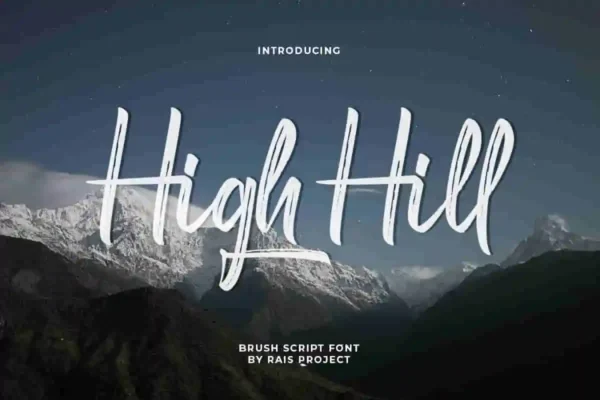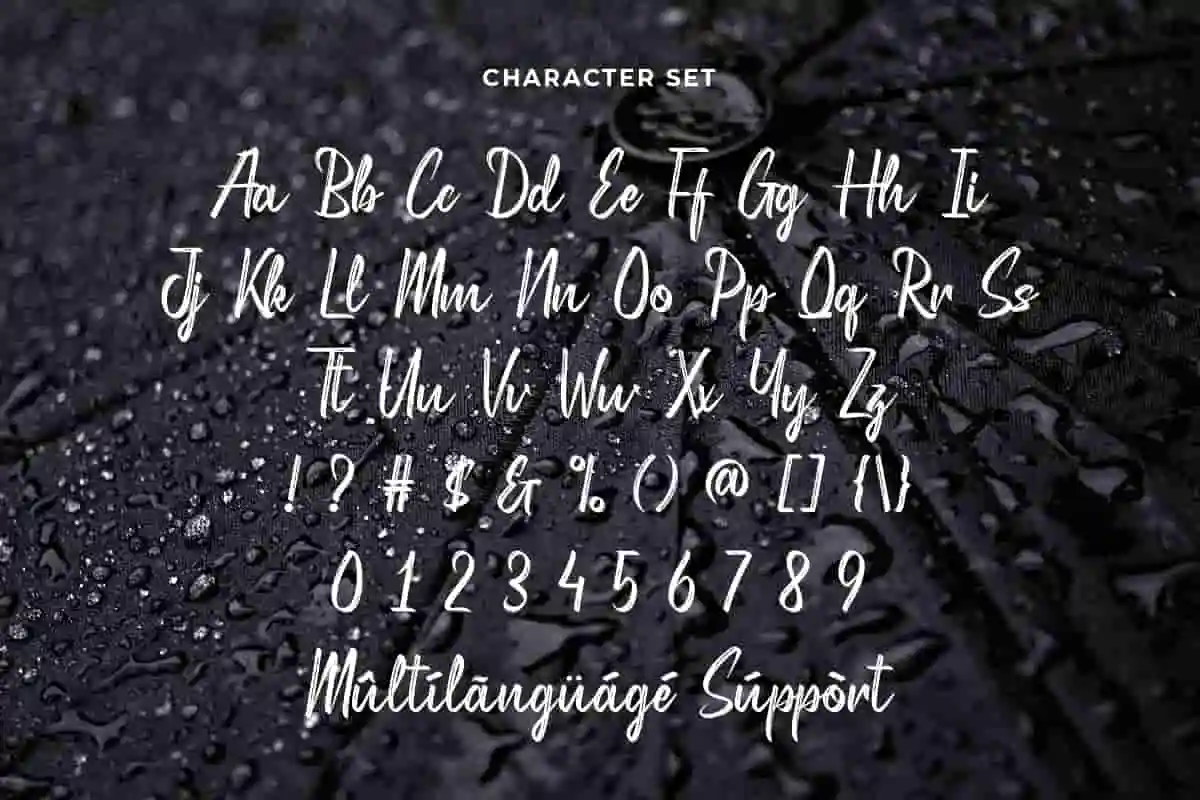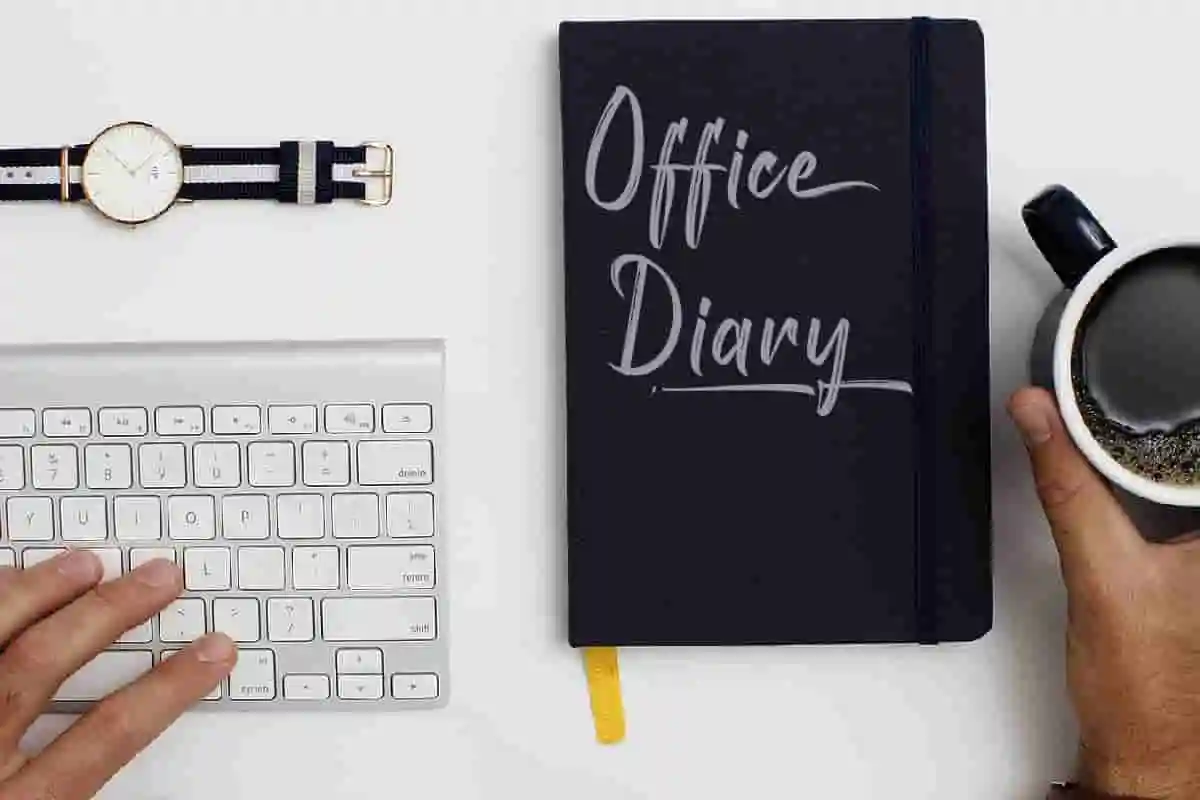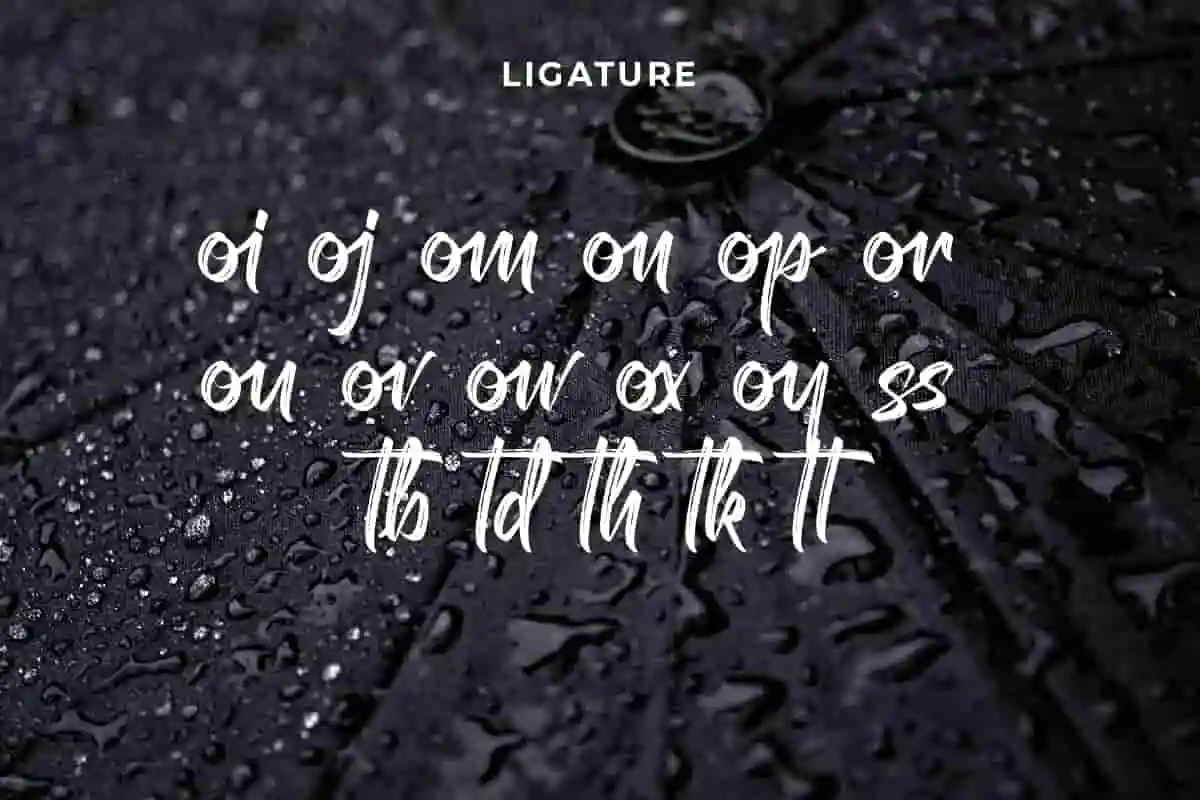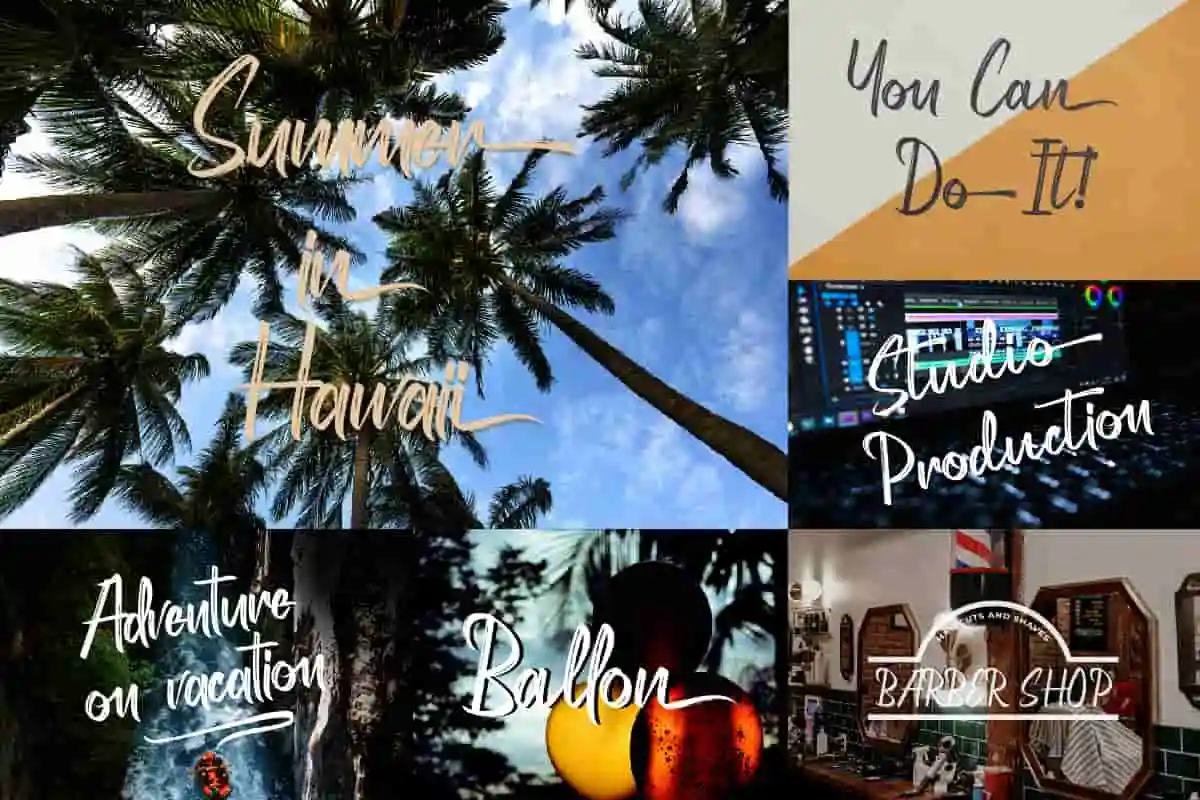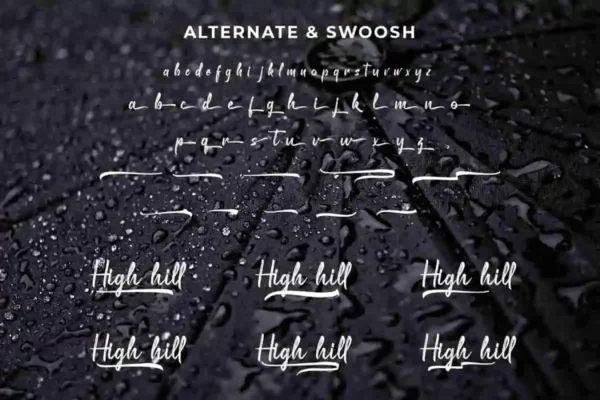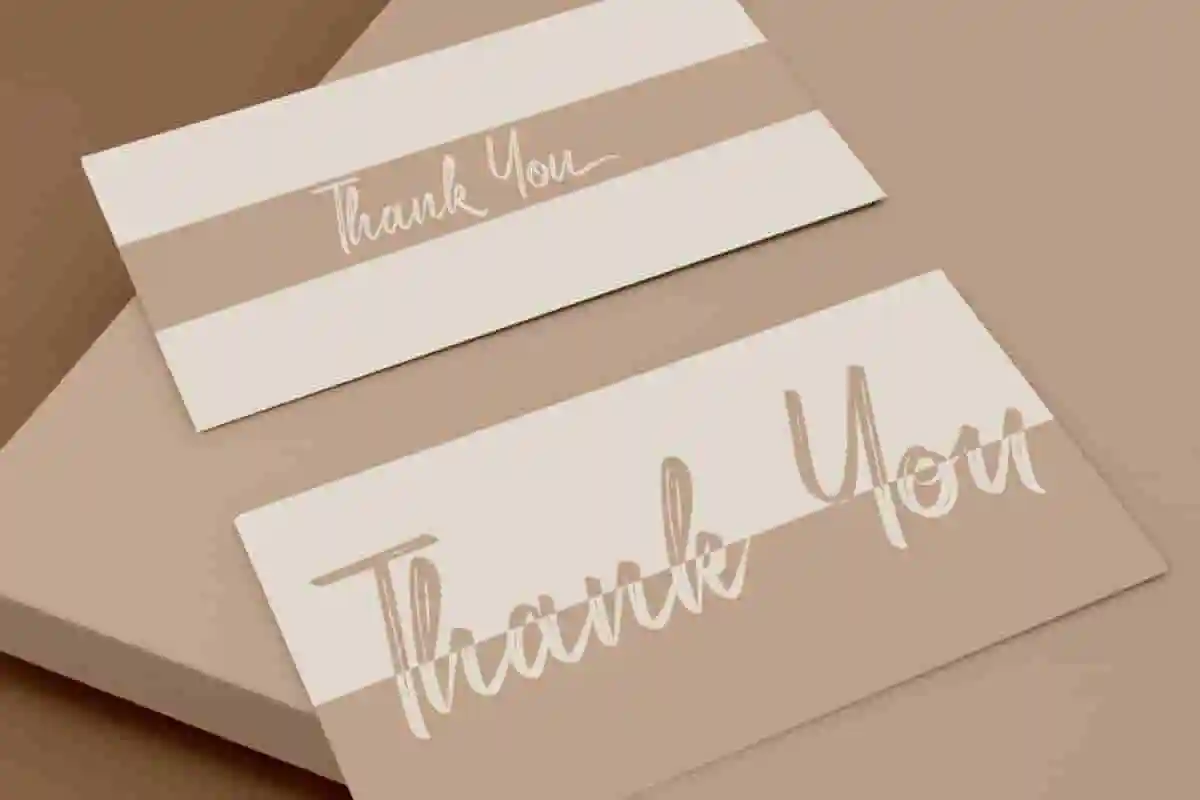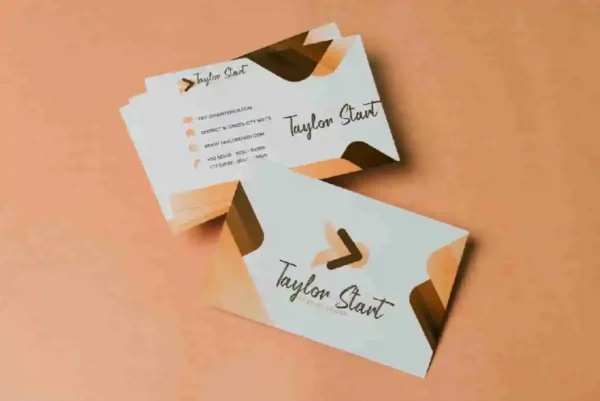
High Hill Font
High Hill Font is a textured brush font, designed by Rais Project. It is an extreme strong brush font with awesome texture that is great for sport, vintage, old style, wedding, Movie, Game, Magazine, Music, Video, outdoor, Racing etc
High Hill Font is a textured brush font with strong extreme style, suitable for sport, games, horror, movie etc. You can see the demo font below. You can also input any word you want so you can see what it will look like :
High Hill Font is remotely made in Bandung and Garut, Indonesia. The font was handcrafted for any your special projects including : headlines, promotion, events, branding, advertising, magazine, signage, invitation, stationery, social media posts, label, or and any projects that need unique strong style. The theme/industries of this font is Vintage, Horror, Movie, Game, Magazine, Music, Video, Sports, Racing etc
High Hill Font includes full set of AWESOME uppercase letters, numerals, a large range of punctuation and ligatures. With a unique textured effect.